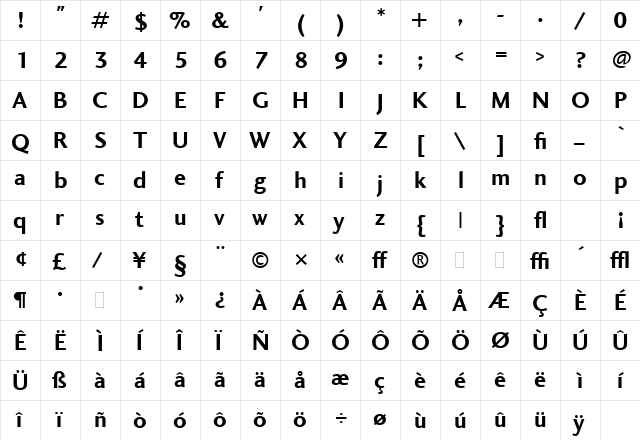
Charlotte Sans Bold LET Regular
| Foundry | International Typeface Corporation |
| Designer | Michael Gills |
Design Context for Charlotte Sans Bold LET Typeface
Charlotte Sans Bold LET offers clean, dependable letterforms without strong stylistic allegiance, making it a practical choice for designers who need flexibility. The heavy weight commands attention and anchors typographic hierarchies.